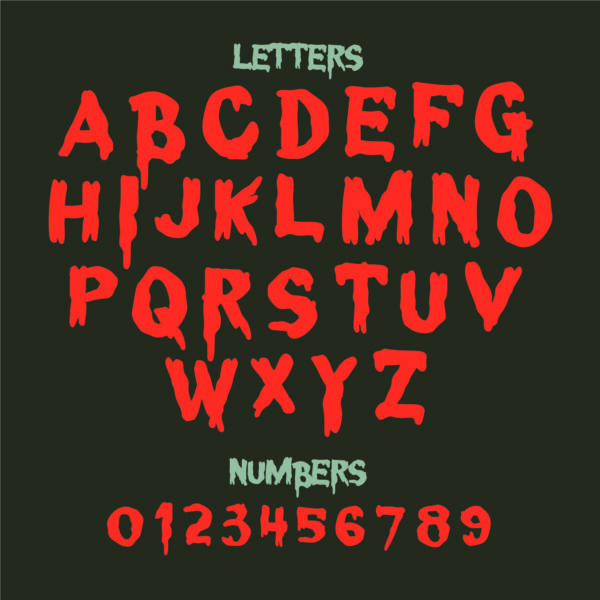
Sturge
Create an eerie atmosphere that will captivate your audience.
Sturge is sure to give your text a spooky, yet impactful edge. The unique letterings create an eerie atmosphere that will captivate your audience. Give your creative work the boost it needs with Sturge – perfect for anything from horror film posters to Halloween decorations!